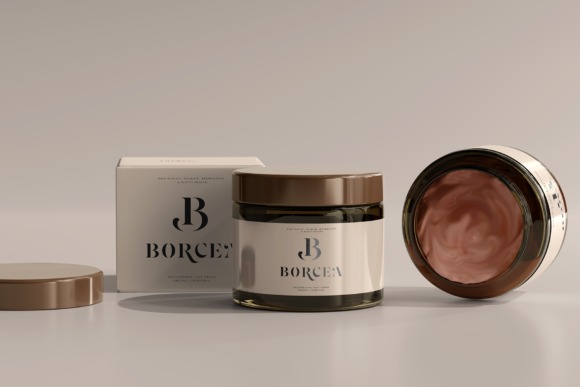
Lerum Font
Lerum is an elegant and bold serif font. It is expressive and playful, and thanks to its harmoniously combined characters and alternates, this font will make your product seem attractive and expensive. This font is PUA encoded which means you can access all of the glyphs and swashes with ease!